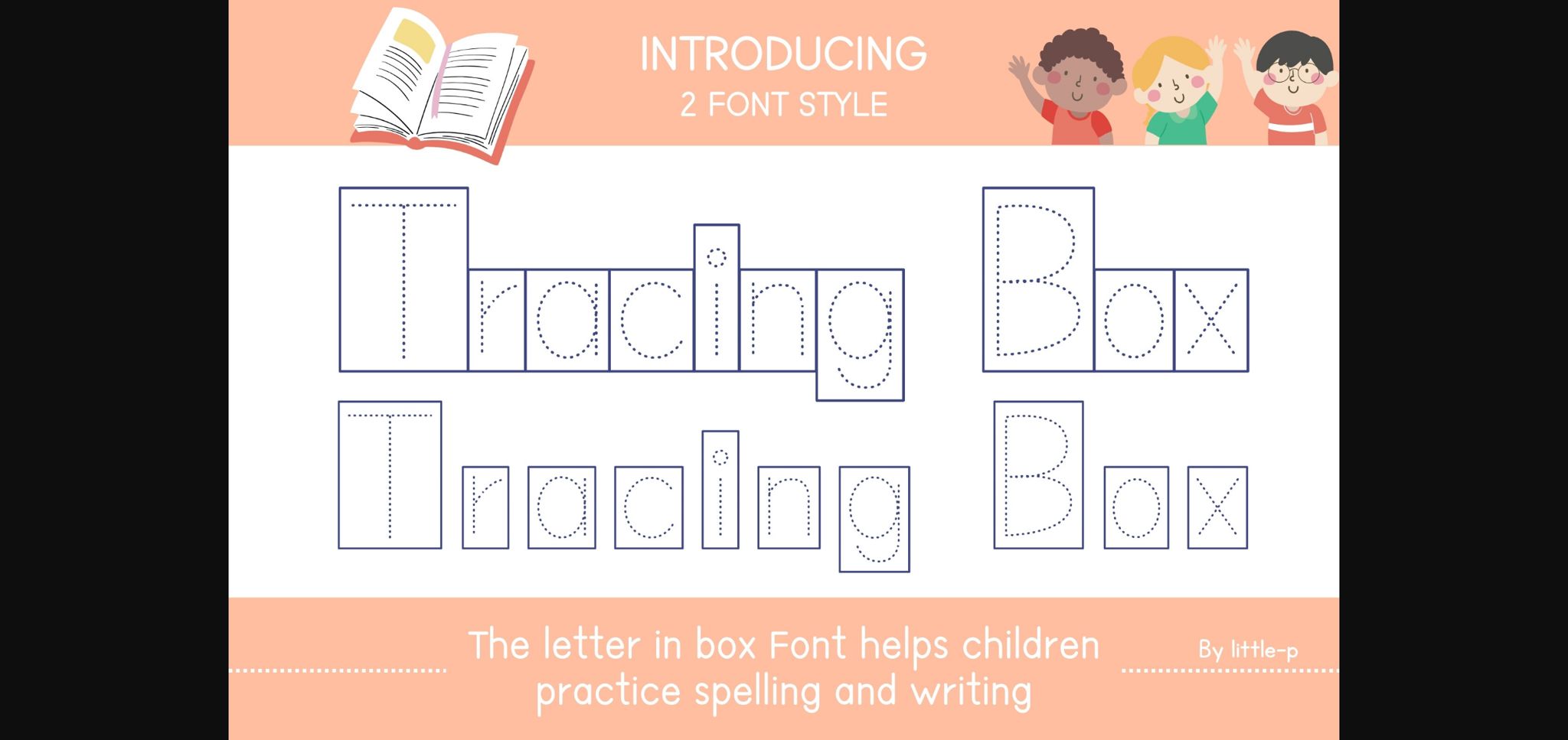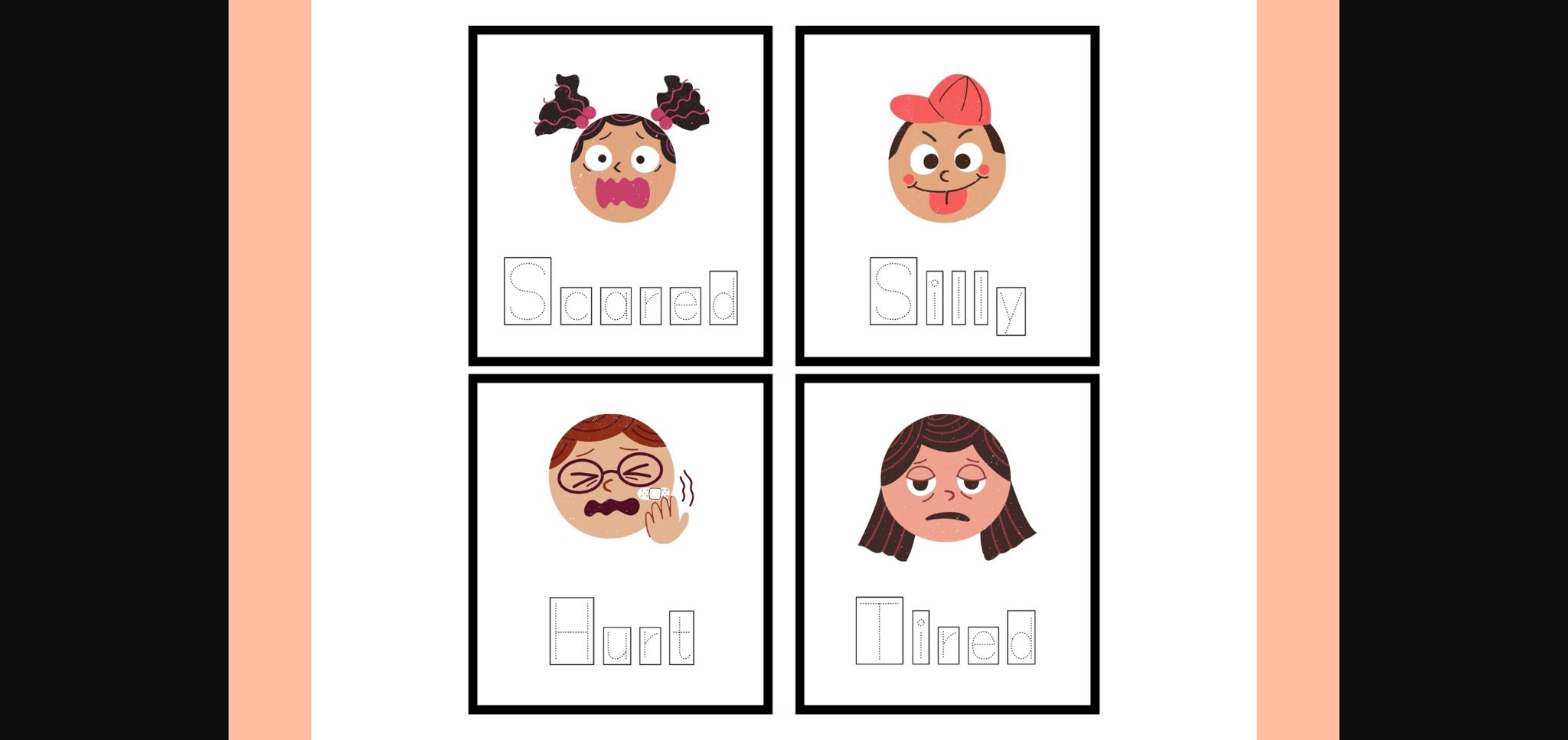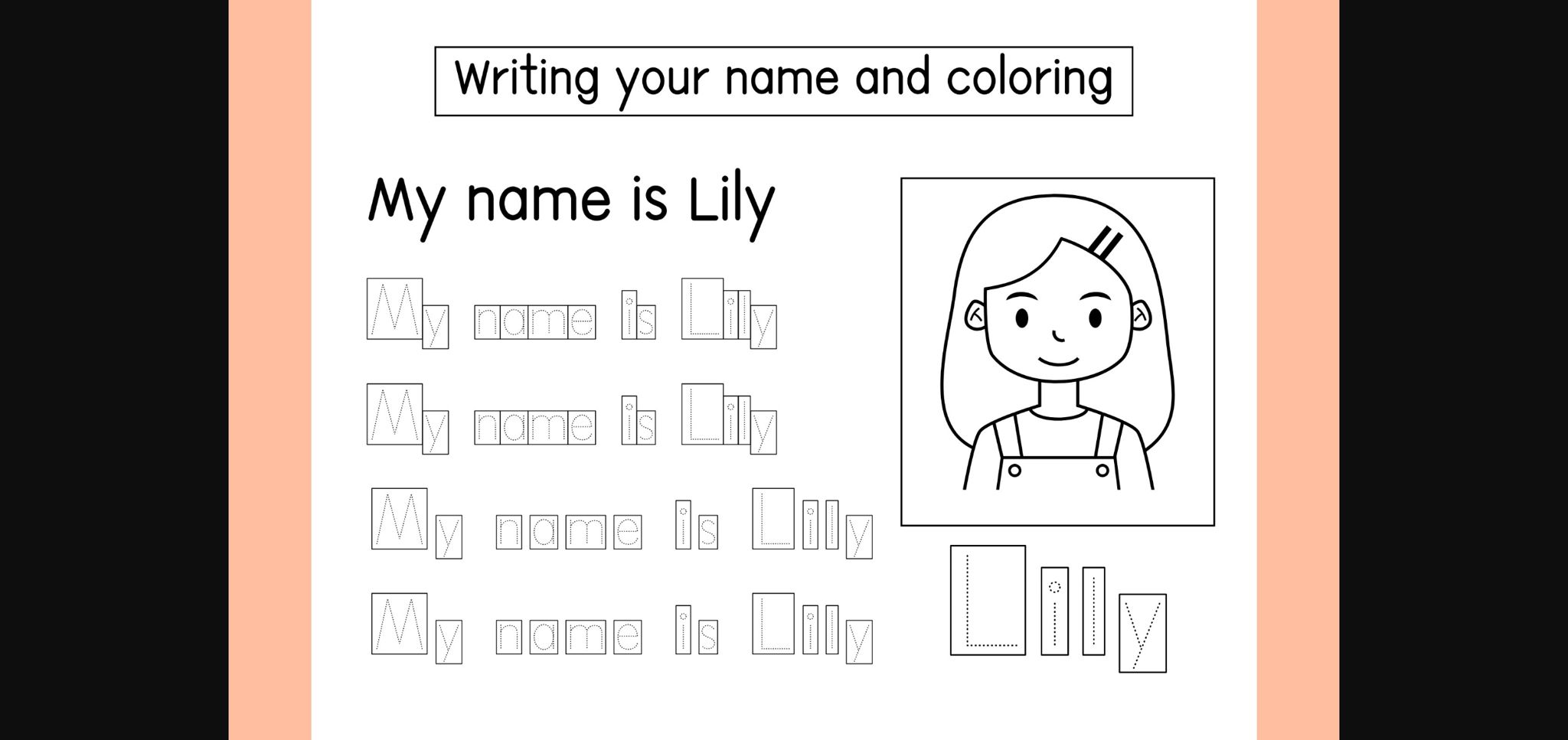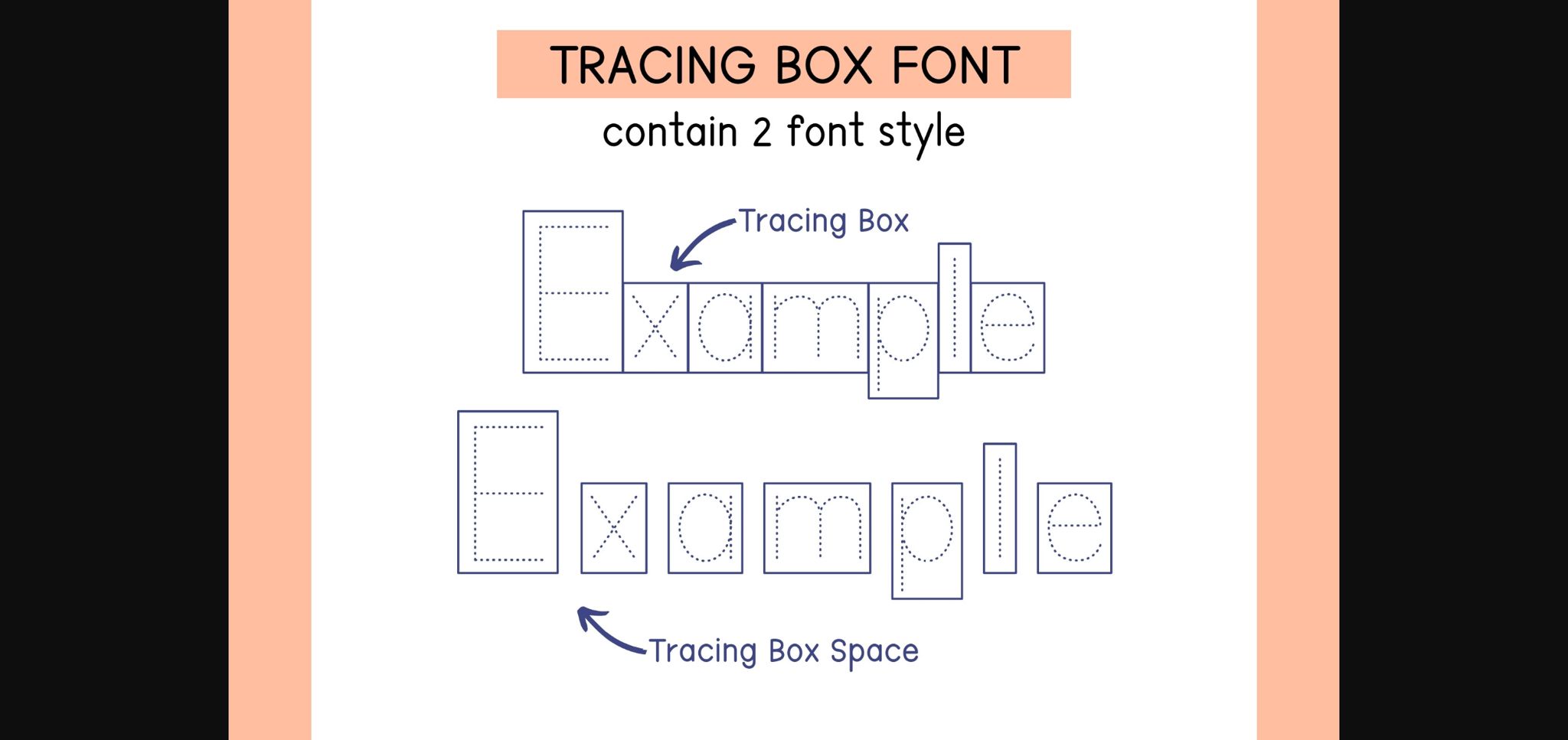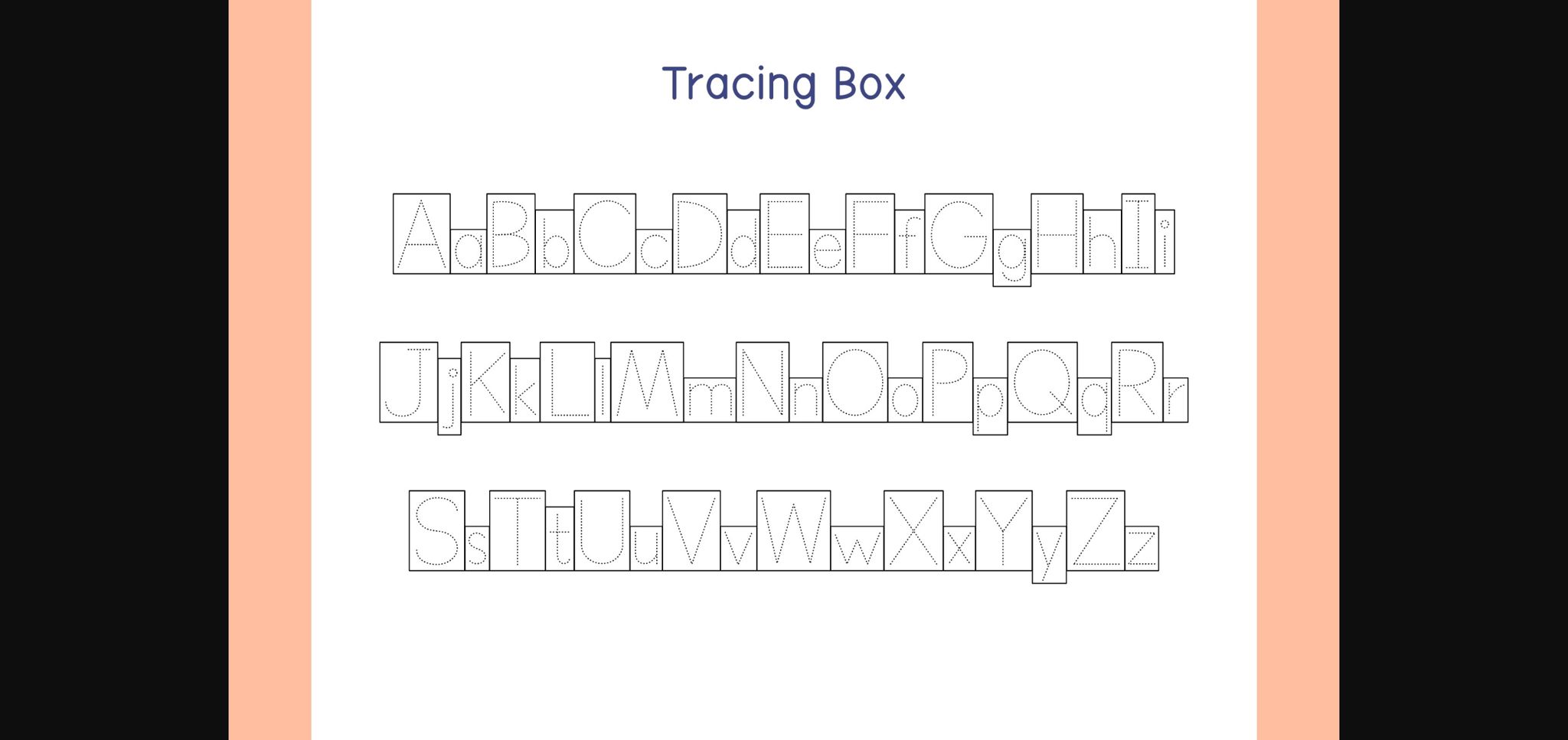
About Tracing Box Font
Introducing “Tracing Box” a unique font designed to aid children in remembering word spellings through the use of letters and squares. This font set includes two distinct styles: Tracing Box Regular and Tracing Box Space. With its innovative design, “Tracing Box” offers an effective way for young learners to practice writing and improve their spelling skills. Ideal for various educational settings, including studying, worksheets, and learning materials for students, kindergartens, elementary schools, and home school environments, this font provides educators and caregivers with a valuable tool for facilitating engaging and effective learning experiences.